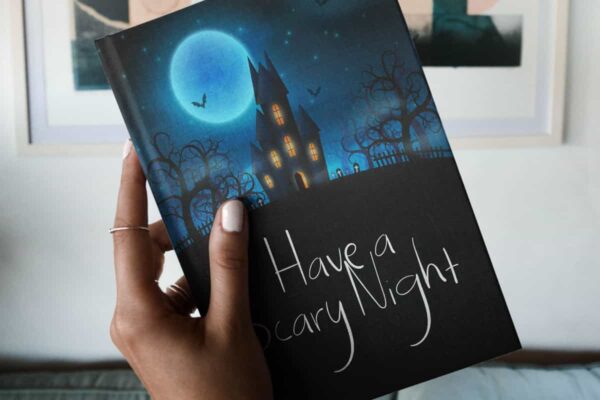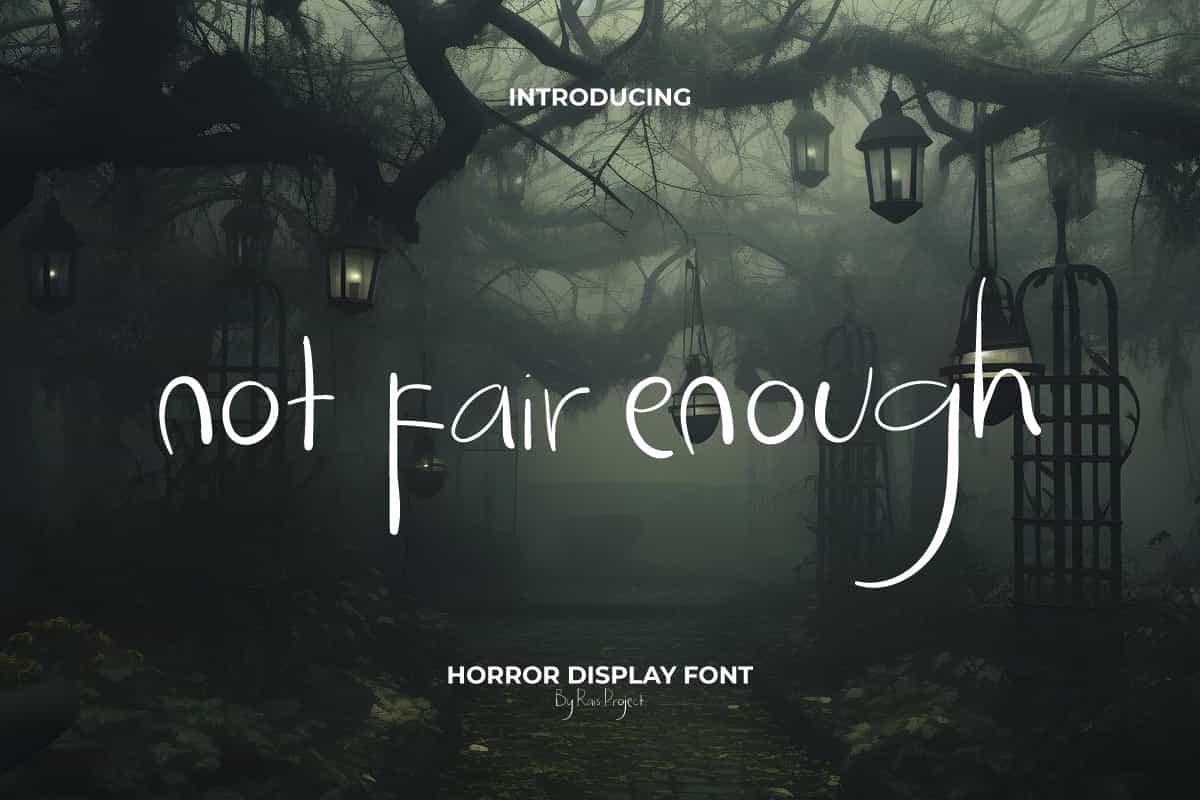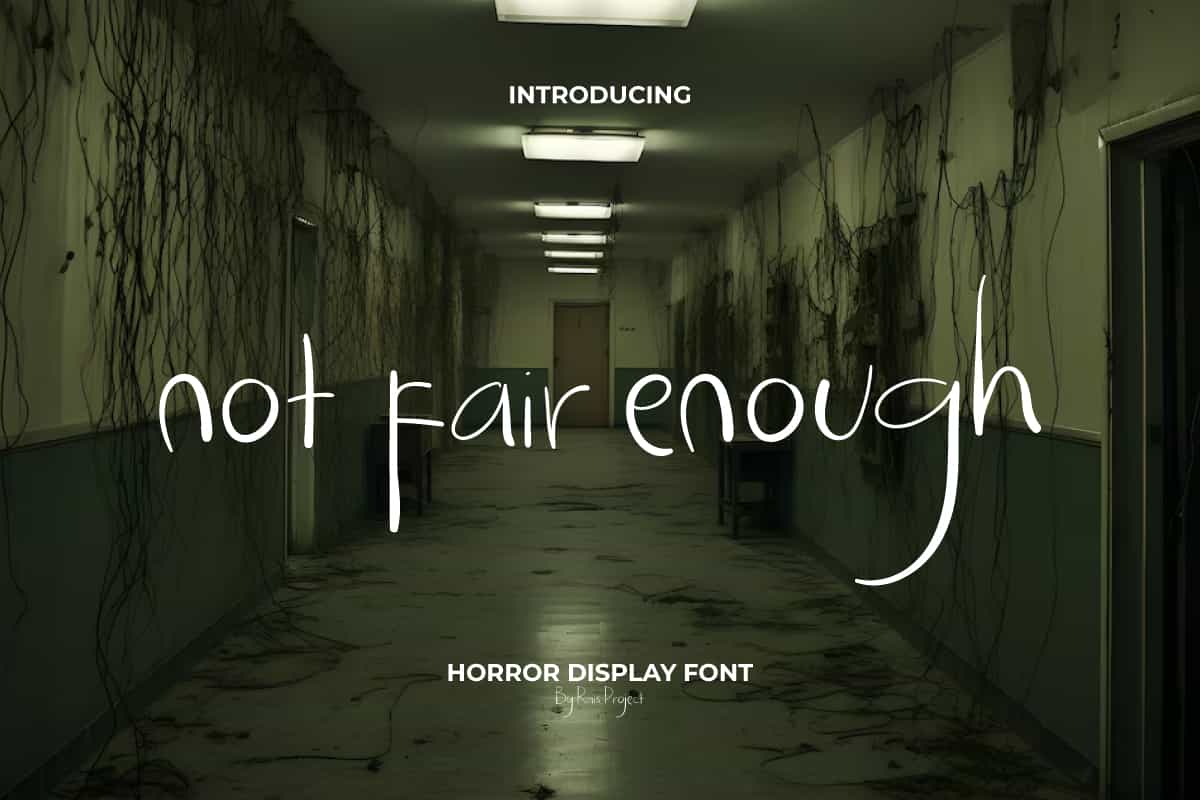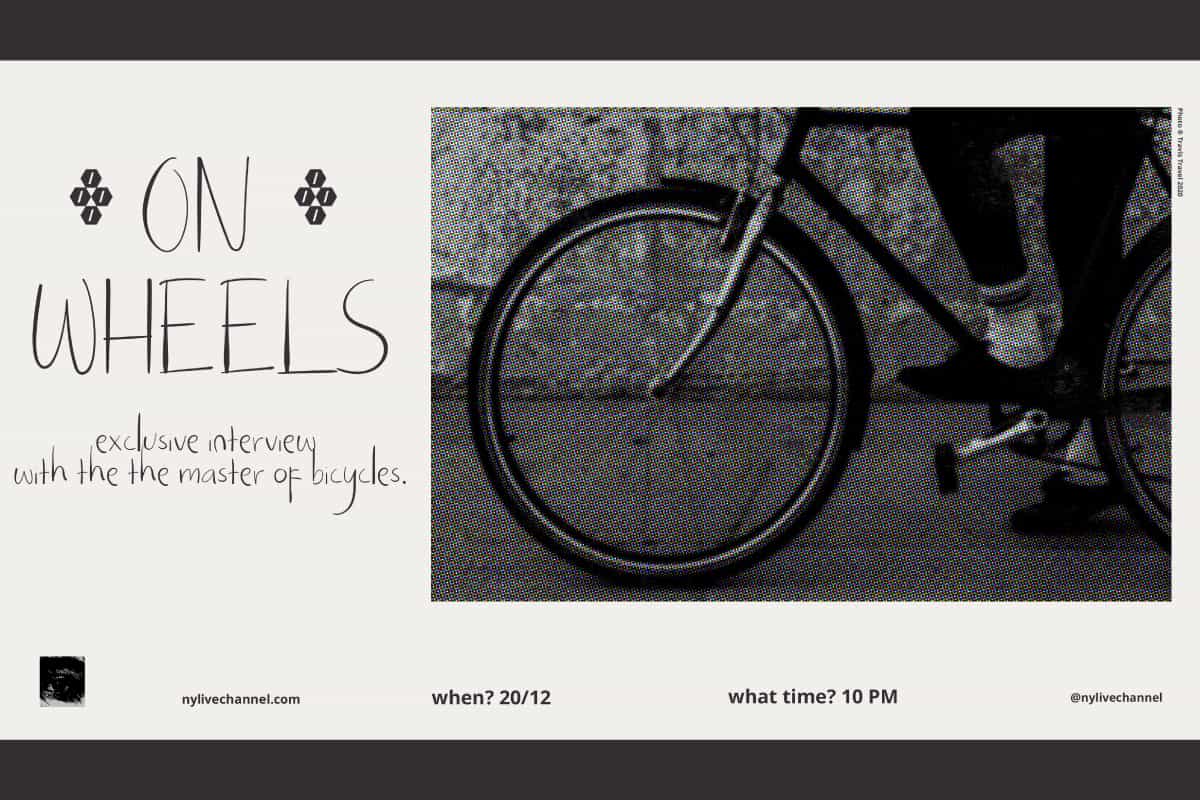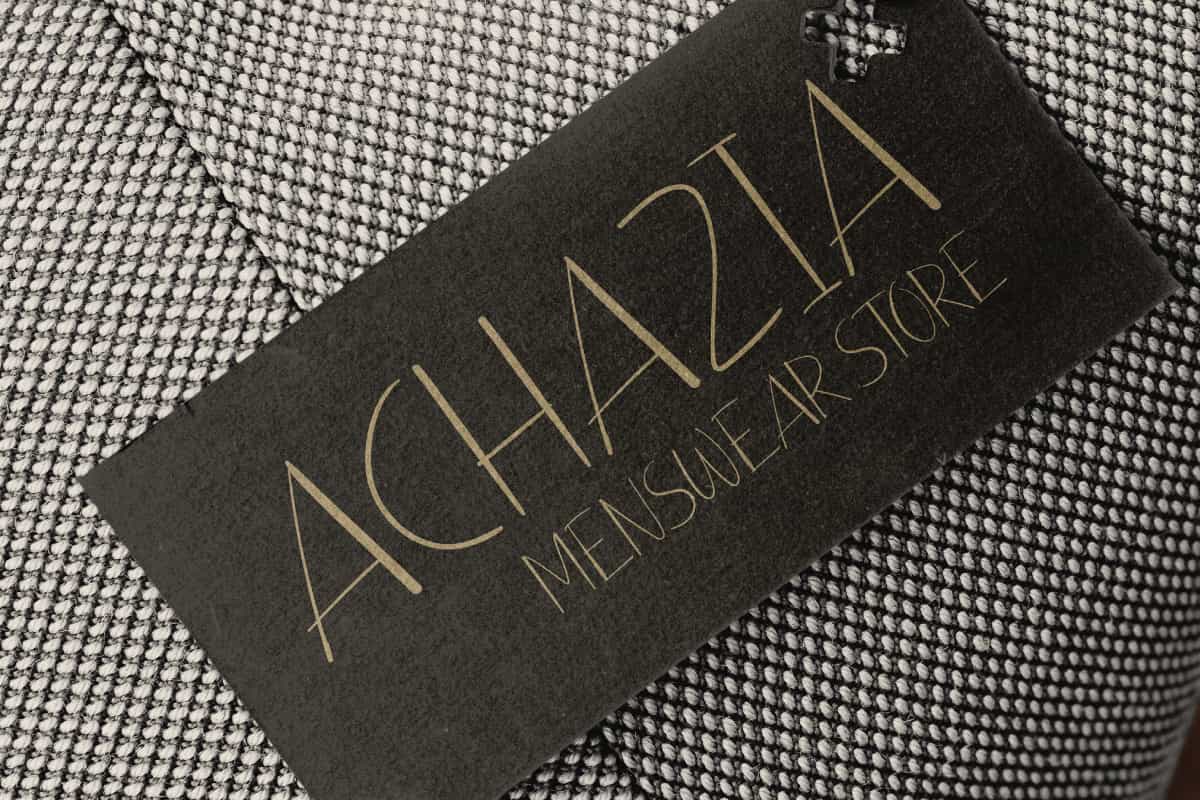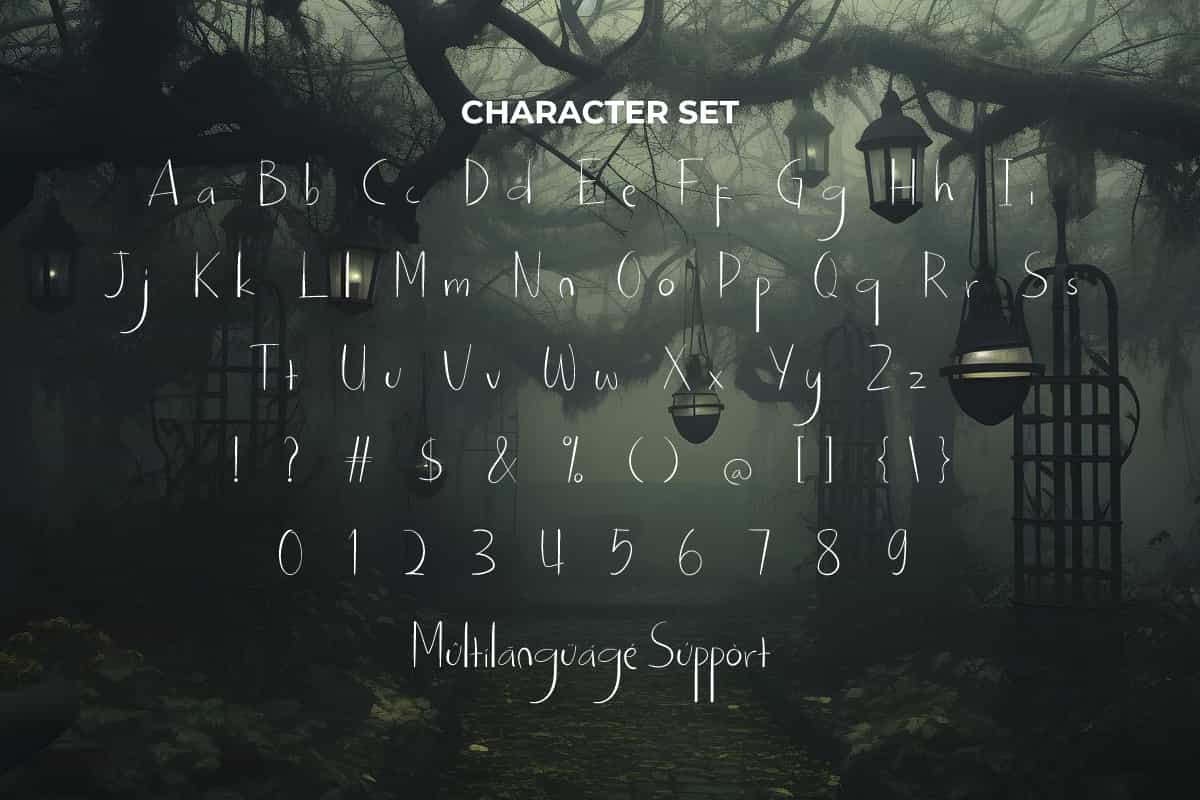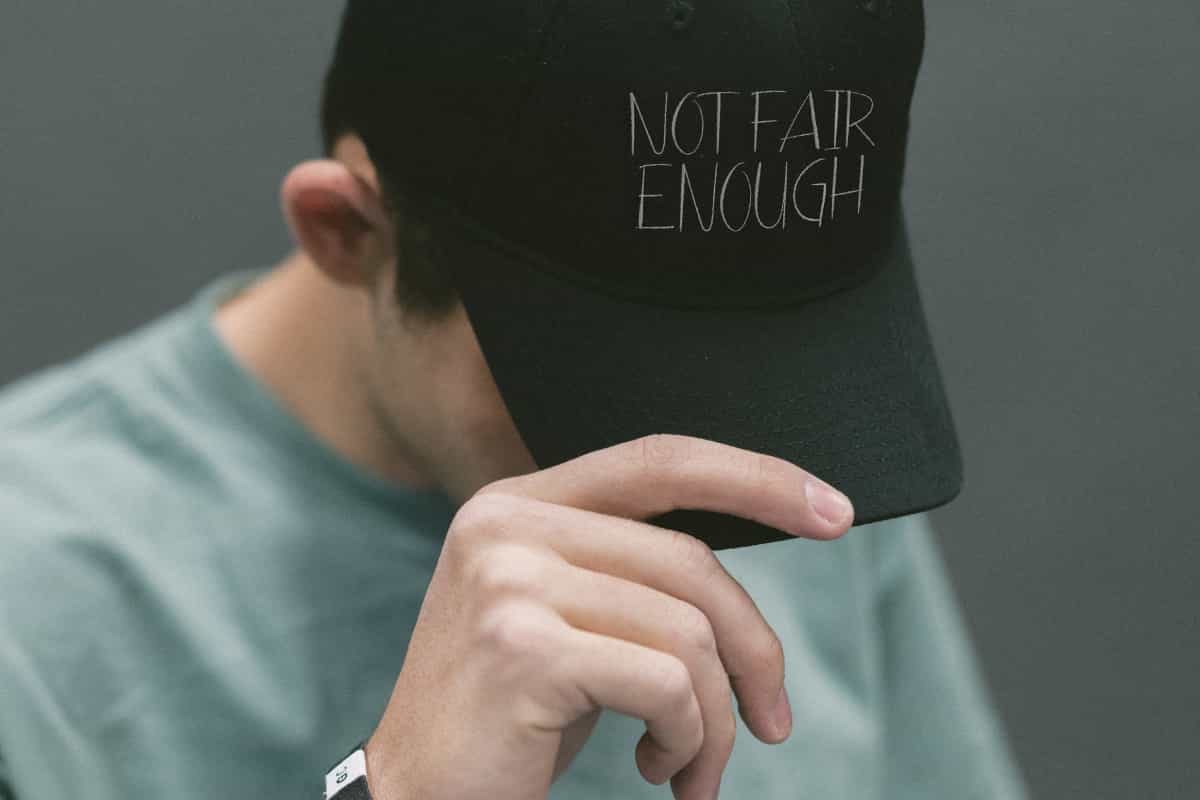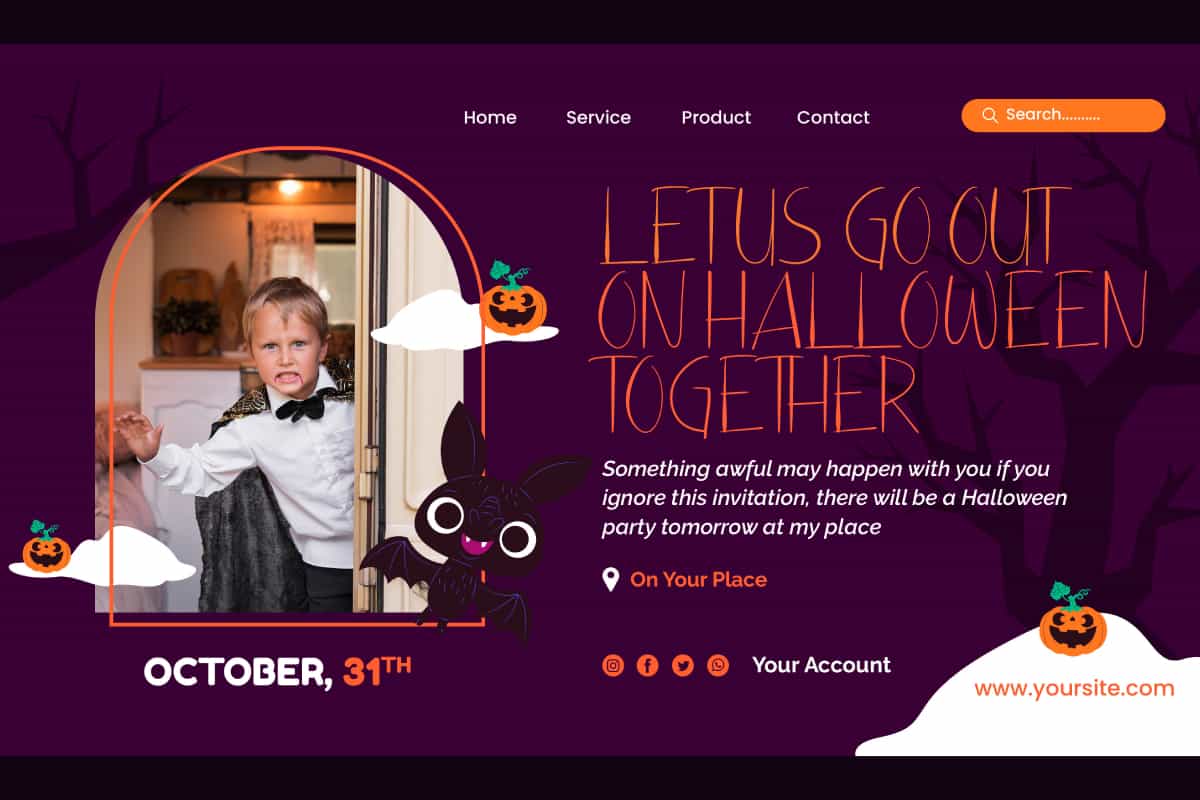
Not Fair Enough Font
Not Fair Enough Font is a subtle and mysterious display font by RaisProject. Create your designs with this font to give you the chills!
Not Fair Enough Font is a horror display font with handwritten style. The line looks like it was made by a thin brush that has almost run out of paint. It would be good for your design, such as poster, brand image, invitation, label, menu, signage, stationery, website page, and more!
Stand out with Not Fair Enough Display Font, a bold and playful typeface designed to make your projects unforgettable. With its unique letter shapes, modern style, and confident personality, this font is perfect for designers who want to create eye-catching visuals that leave a lasting impression.
Whether you’re working on logos, posters, branding, packaging, merchandise, social media content, headlines, invitations, or advertising campaigns, Not Fair Enough Display Font brings a fresh and dynamic vibe to every design. Its quirky yet stylish look makes it ideal for creative projects that demand individuality and energy.
Every character in Not Fair Enough Display Font is carefully crafted to balance originality and readability. This ensures your designs stand out while remaining clear and functional across both print and digital platforms. From bold marketing materials to trendy apparel branding, this font is your go-to solution for a modern, edgy aesthetic.
Typography is a powerful way to express personality, and Not Fair Enough Display Font helps you make a statement with every word. Its unique charm adds depth and creativity to any project, giving your work the bold identity it deserves.
Not Fair Enough Display Font includes a full set of ALL CAPS for Uppercase and Lowercase Letters, Numerals, and large range of Punctuation. This horror font will be suitable for various industries, such as event or festival, fashion, game, movie, photography, printing, publishing, etc.